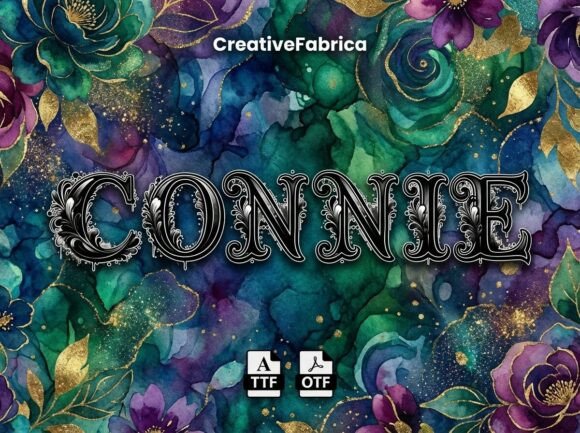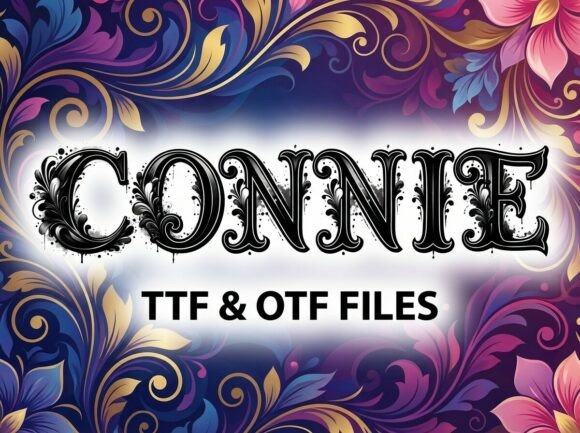
Introduction to Connie Font
Imagine yourself standing in a dimly lit, vintage apothecary, surrounded by dusty bottles and ornate wooden cabinets. As you run your fingers over the intricate labels, you’re struck by the elegant typography that adorns each one. That’s the magic of the Connie Font – a premium decorative serif font that transports you to a bygone era of refinement and sophistication.
As a designer, you know the value of a high-quality design resource that can elevate your creative project to new heights. The Connie Font is just that – a versatile and timeless font that can be used for everything from luxury liquor labels to cinematic period titles. With its heavy contrast and intricate internal textures, it’s the perfect choice for designers looking to add a touch of classical elegance to their work.
Key Features of Connie Font
- High-quality design: The font features a unique, elegant design that is perfect for a variety of applications, from titles to body text.
- Unique characteristics: Connie Font features a distinctive, hand-drawn style with subtle flair, making it stand out from other fonts.
Honest Review: Connie Font
I recently stumbled upon the Connie Font, a free download that caught my attention. As a designer, I’m always on the lookout for high-quality design resources that can elevate my creative projects. In this review, I’ll share my honest thoughts on what works well and what might not.
- The Connie Font has a beautiful, elegant design that’s perfect for titles, headings, and other prominent text elements.
- The font family includes a range of weights and styles, offering flexibility for various design applications.
- The font might not be suitable for body text, as it can be a bit too ornate and difficult to read in large quantities.
- The font family is relatively small compared to other popular font collections.
Overall, I’m impressed with the Connie Font’s high quality and versatility. While it may have some limitations, it’s an excellent addition to any designer’s toolkit. With its elegant design and transparent background feature, it’s perfect for adding a touch of sophistication to your creative projects.
Tips for Getting the Most Out of Connie Font
To get the most out of the Connie Font, use it with a transparent background to create a clean and modern design. You can also pair the font with other design resources to create a unique and creative project.
The Connie Font is a versatile font that can be used for various creative projects, such as social media graphics, posters, logos, business cards, presentations, and more.